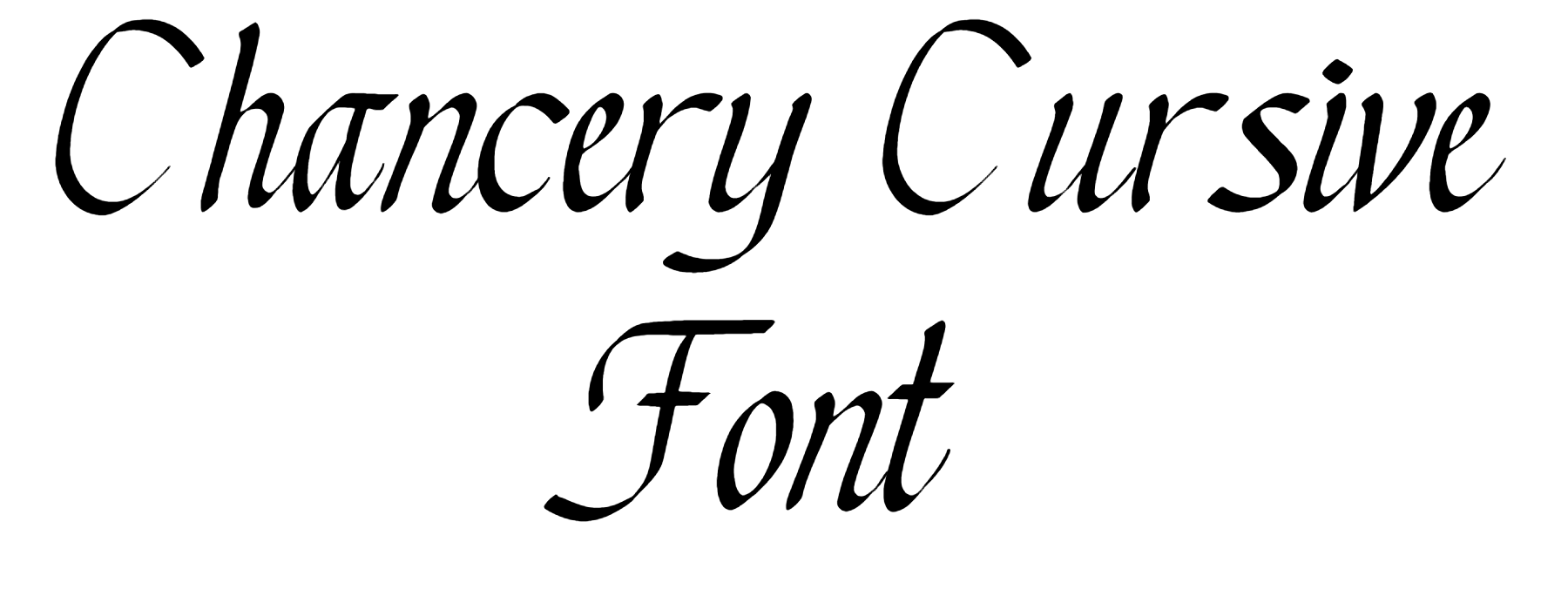
Chancery Cursive
Chancery Cursive is a fancy font (1998). Bold and full of character, it's built to stand out rather than blend in. You can download it for free and test it with your own words in the preview above.
Chancery Cursive covers the full alphabet in upper and lowercase, plus all ten numbers, so you can set names, dates and prices without switching fonts. Punctuation is limited, so look at the character map if you need a specific symbol. It has 1 accented letters, but not the full set for Spanish or French, so test any non-English words first.
Chancery Cursive is a natural fit for posters, logos and eye-catching headlines. The file has no kerning data, so in logos and big titles check pairs like AV, To and Wa and tighten the spacing by hand. Use it for one standout word or headline and let simpler fonts handle the rest.